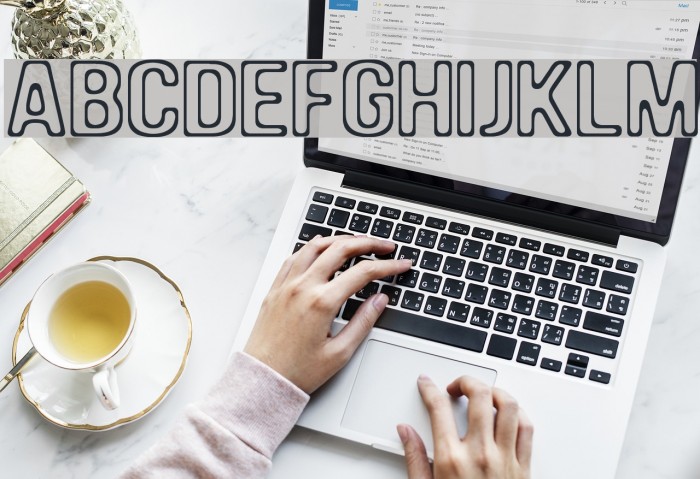
DAM Font
This font features a bold, outlined style with a modern and playful aesthetic. The characters are uppercase and have a uniform thickness, creating a cohesive and structured appearance. The rounded edges add a friendly and approachable feel, while the outline gives it a distinctive and eye-catching look. The spacing between characters is normal, ensuring readability and balance. This font is suitable for various design projects that require a bold statement, such as posters, headlines, and branding materials.
A bold, outlined font with a modern and playful style.
- Proposed Projects: Ideal for posters, headlines, branding, and any design needing a bold statement.